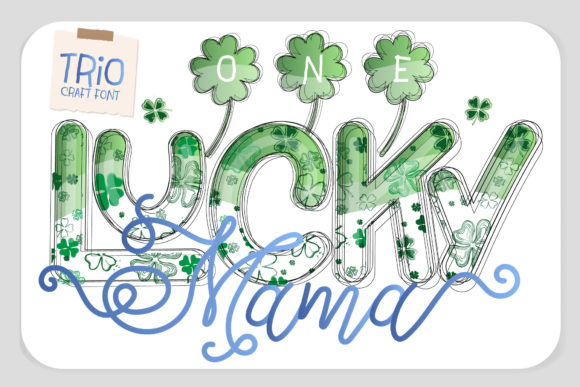
Introducing One Lucky Mama Font, the perfect choice for your wedding-related projects! Created by Nobu Collections, this font family is not your average typeface - it's a cool and incredibly versatile trio font, featuring display, decorative, and script styles.
With One Lucky Mama Font, your designs are bound to turn heads and leave a lasting impression. Whether you're creating a wedding invitation, a poster, or a flyer, this font will add a touch of elegance and charm to your project.
What sets One Lucky Mama Font apart is its PUA encoding, which allows you to effortlessly access all the glyphs and swashes. This means you can easily customize and personalize your designs, adding a unique and stylish flair to each piece.
Imagine the joy and excitement on your loved ones' faces when they receive a beautifully crafted wedding invitation featuring One Lucky Mama Font. Its exquisite details and elegant curves will make your special day even more memorable.
Not only does One Lucky Mama Font offer stunning visuals, but it also evokes emotions. It captures the essence of love, happiness, and celebration, making it the ideal choice for any wedding-related design project.
Don't settle for ordinary fonts when you can have One Lucky Mama Font to elevate your designs. Its captivating beauty and versatility make it a must-have for any creative individual or professional designer.